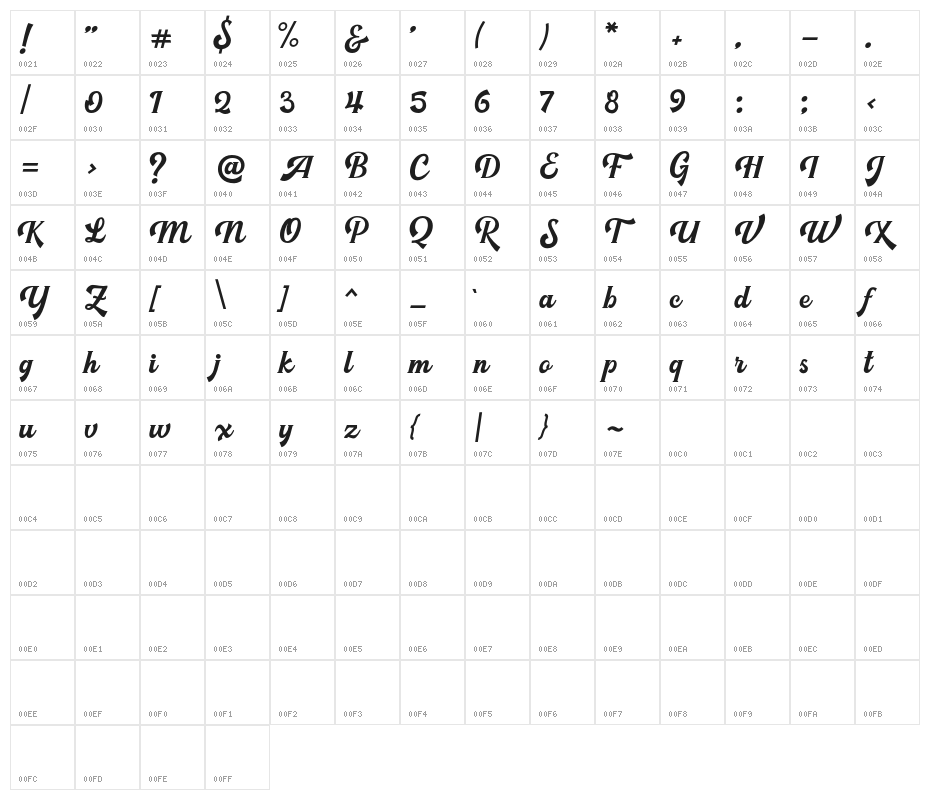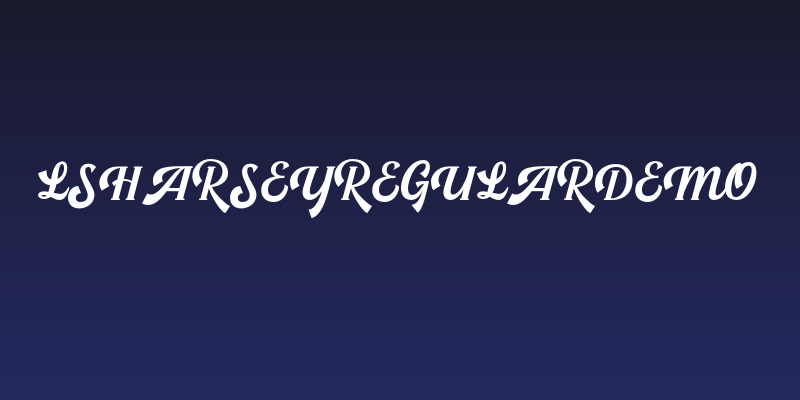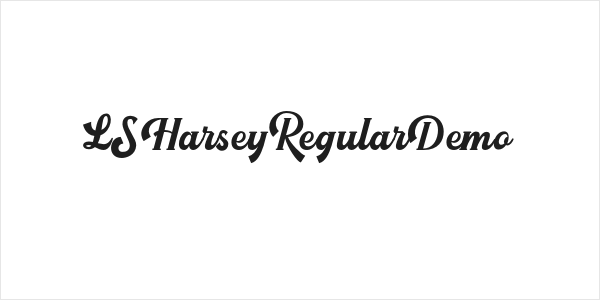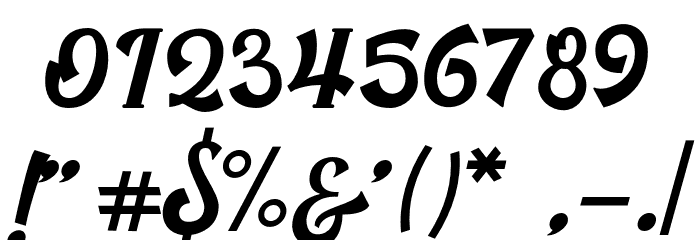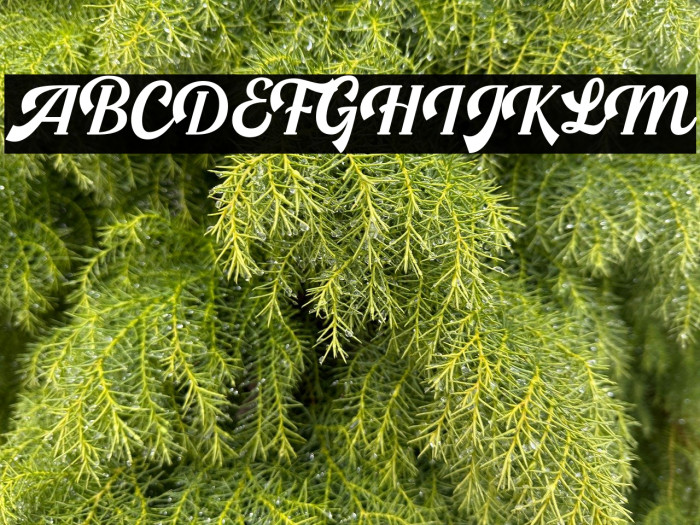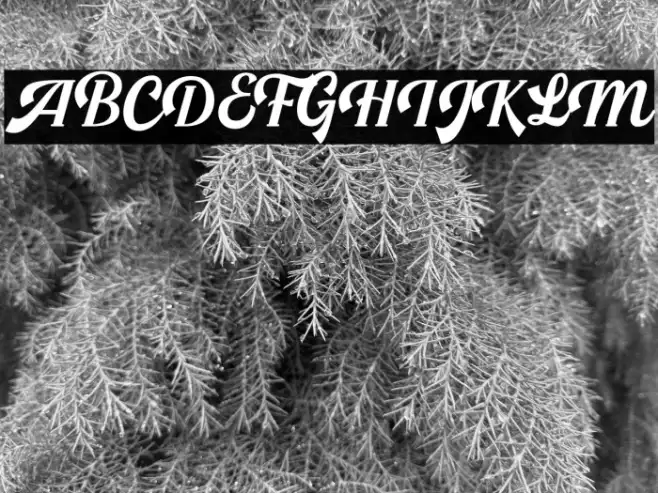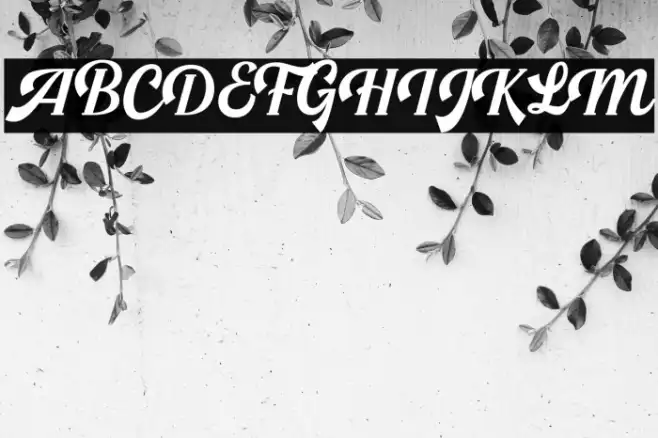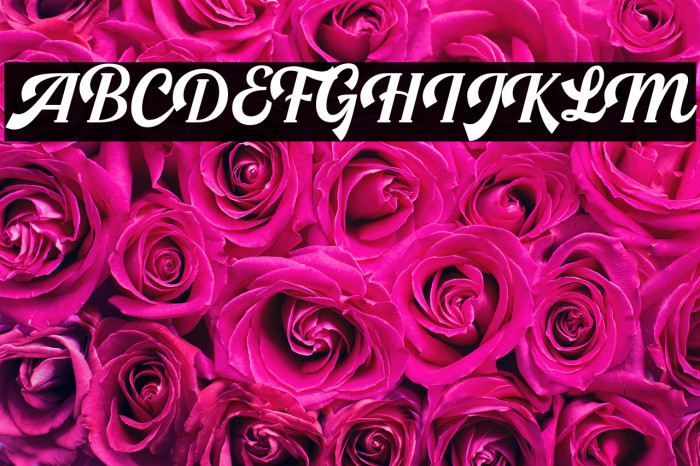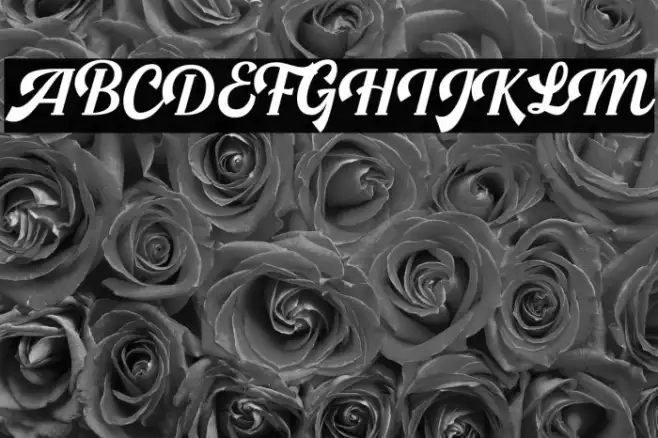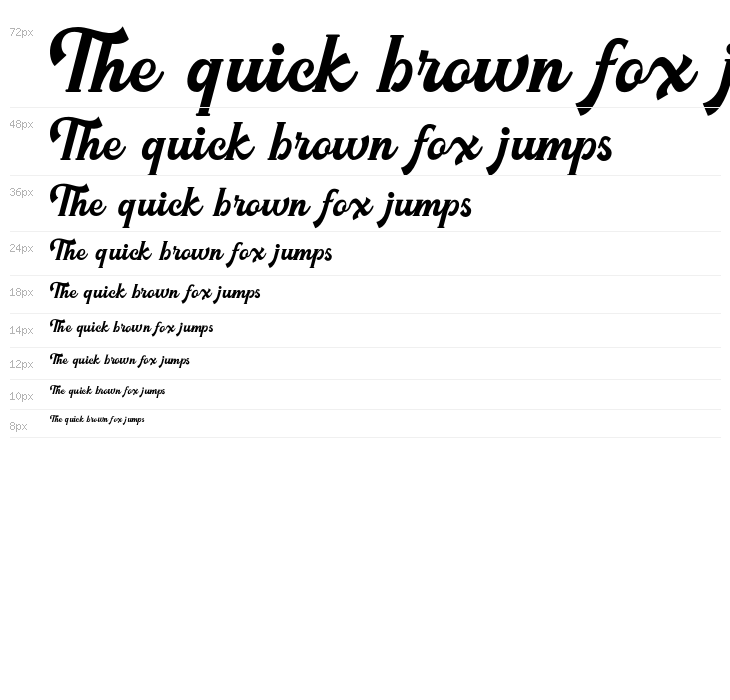
LSHarseyRegularDemo Font
LSHarseyRegularDemo Description
This font features a bold and dynamic script style with a strong presence. The characters are designed with a slight slant, giving them an elegant and flowing appearance. The uppercase letters are particularly striking, with sweeping curves and distinctive flourishes that add a sense of movement. The lowercase letters maintain a consistent style, complementing the uppercase with their own unique flair. Numbers and special characters are crafted to match the overall aesthetic, ensuring a cohesive look across all text. The font's bold weight and high contrast between thick and thin strokes make it highly legible and impactful.
| Proposed Projects | Ideal for branding, invitations, and logo design where a touch of elegance and boldness is desired. |